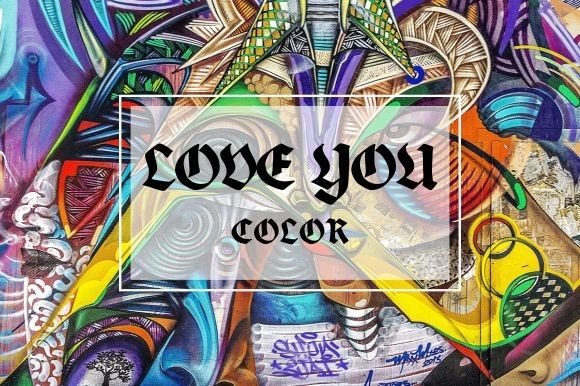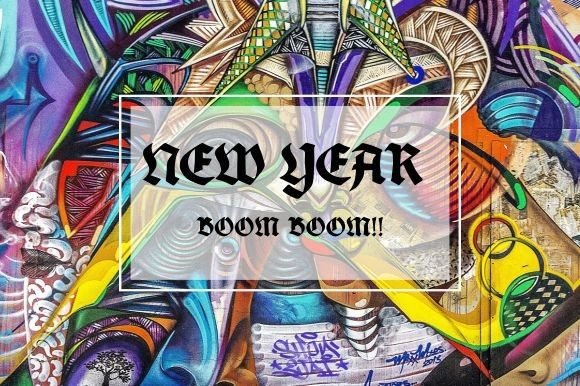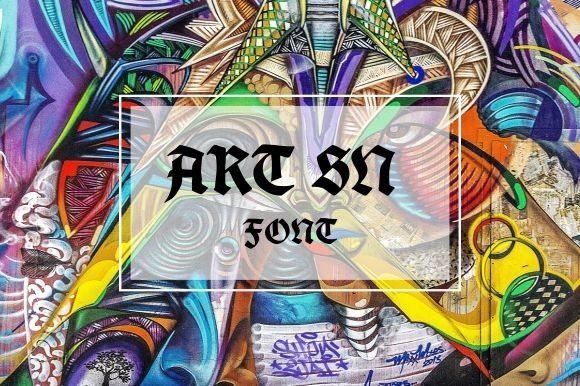
Give Your Designs a Touch of Elegance with Art Sn Font
You know that feeling when you’re working on a creative project and the perfect font just eludes you? You’ve tried dozens of options, but nothing seems to capture the essence of your vision. That’s when I fell in love with the Art Sn Font – a stylish and elegant handwritten font that brings a touch of sophistication to any design.
Art Sn Font is more than just a font; it’s a tool that can elevate your creative projects and leave a lasting impression. With its subtle blackletter vibe, it adds a unique touch to any design, from invitations and quotes to logos and branding materials. For designers, Art Sn Font is a valuable asset that can help them stand out in a crowded market and create designs that truly reflect their style.
Art Sn Font Key Features
- Unique Characteristics: The font features a unique blend of modern and traditional design elements, making it perfect for creating eye-catching and sophisticated visual content.
Art Sn Font Review
First impressions are everything, and the Art Sn Font certainly caught my eye ✨. The unique blend of modern and classic design elements is a breath of fresh air in the world of typography. The font’s versatility shines through in its ability to be used for a wide range of projects, from elegant posters to catchy headlines.
- ✨ Excellent legibility: The Art Sn Font is clear and easy to read, making it perfect for body text and other long-form content.
- ✨ Unique character: The font’s distinct design sets it apart from more generic fonts, adding a touch of personality to any project.
However, there are some limitations to consider ⚠️. The font’s complexity can make it challenging to customize and modify, which may be a drawback for designers who prefer a high degree of control.
- ⚠️ Limited customization options: While the Art Sn Font is beautiful as-is, it can be difficult to adjust the font’s style and layout to suit specific design needs.
- ⚠️ May not be suitable for small text: Due to its unique design, the Art Sn Font may not be the best choice for small text or other situations where readability is a top priority.
Overall, I would give the Art Sn Font 4 out of 5 stars. While it has some limitations, its unique design and excellent legibility make it a great addition to any designer’s toolkit.
The Art Sn Font is ideal for a variety of design applications, including:
- Graphic design
- Typography-based designs
- Document design
- Presentation design